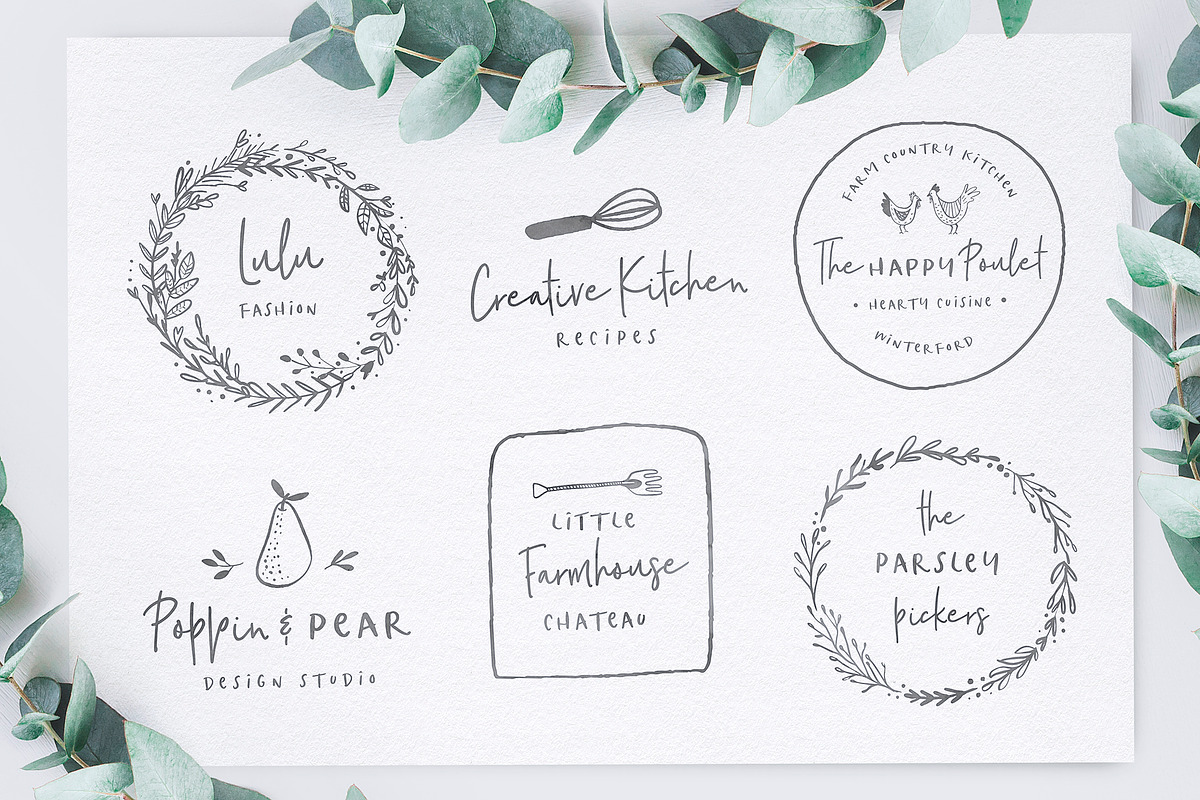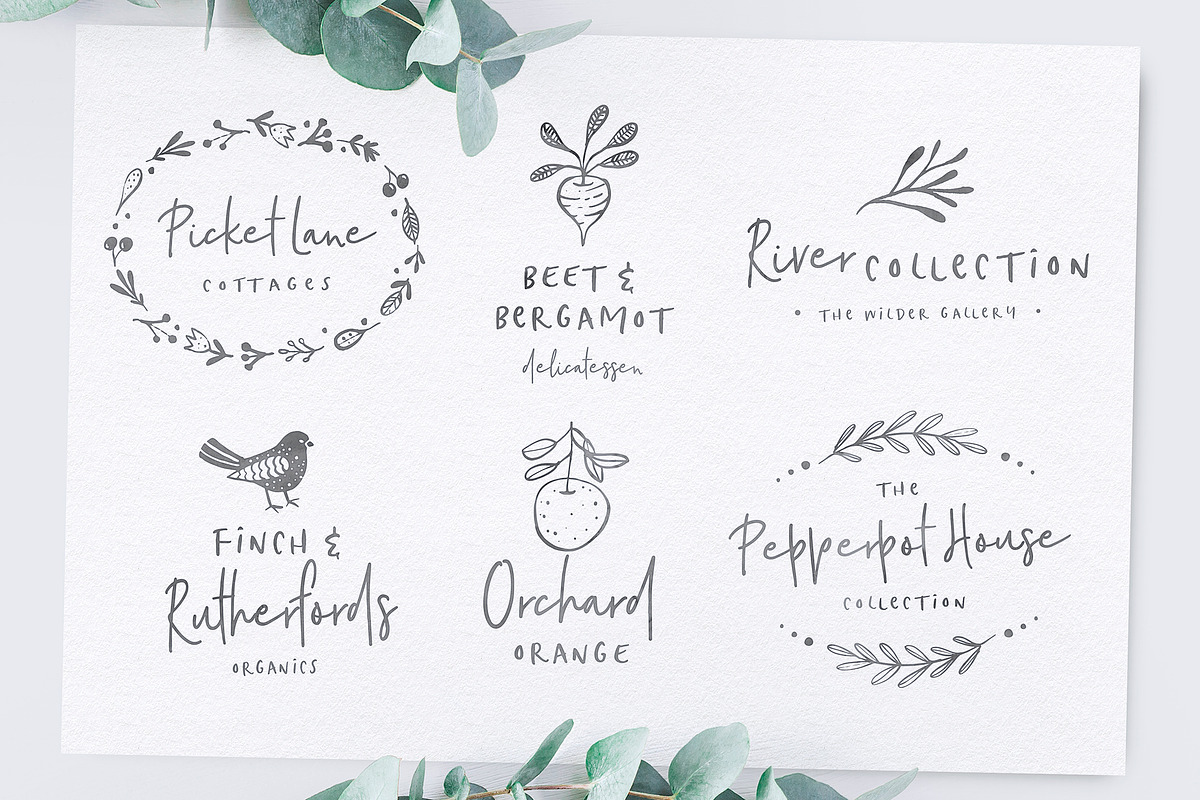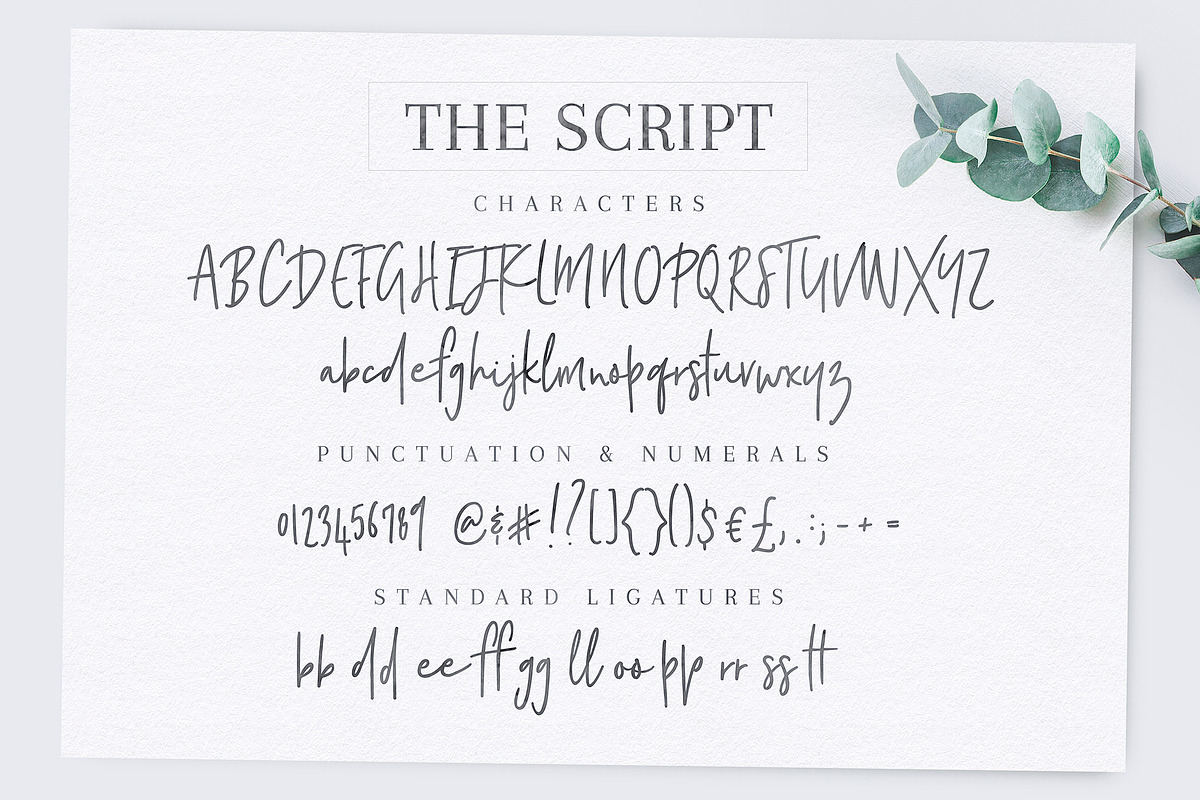
Poppit & Finch Font is a sweet little font duo with oodles of country-inspired illustrated vectors and pre-designed logo templates, easy to use, and all inspired by this little piece of heaven I’ve found.
The font pack also includes 47 Easy-to-edit Premade Logo Templates – to get you inspired for your personal/commercial branding projects. Use them as they are, or mix and match them with a huge selection of illustrations to make millions of logo combinations.